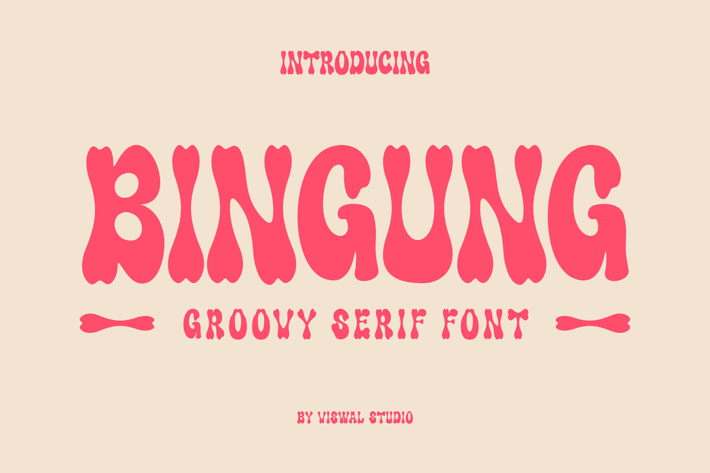
Bingung - Groovy & Graffiti Font
Presenting Bingung Is A Bubble Groovy Font.
Can Make It Easier To Convey The Message In Your Design. Font Is Suitable For Logo, Labels, Badge, Branding, Magazine, Poster, Title, Gigs, Covers And Etc. Our Fonts Have Uppercase & Lowercase, Numeral & Punctuation, And Opentype Features. For Amazing Designs You Can Mix With Other Fonts As A Complement.